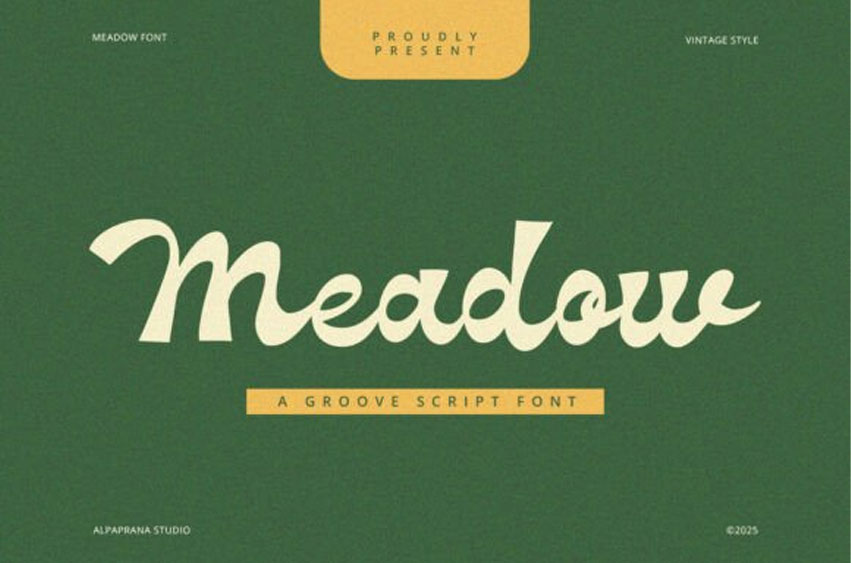
Meadow Font is a groove script font with bold and classic feels. It will be perfectly used for Branding, Logo Design, Lettering, Logotype, Clothing, posters, magazines, packaging, posters, shopping bags, t-shirts, book covers, photography, special events, and other design projects.
– Uppercase & Lowercase
– Numerals
– Punctuations (OpenType Standard)
– Accents (Multilingual Characters)
– Ligatures and Alternative Style Stylistic Set